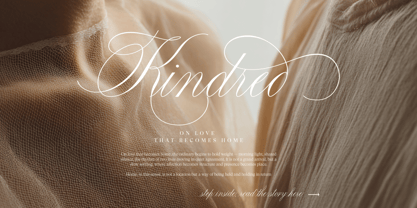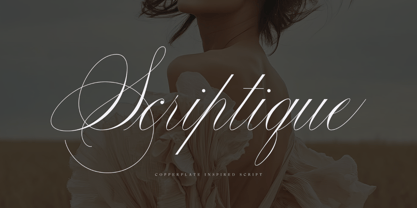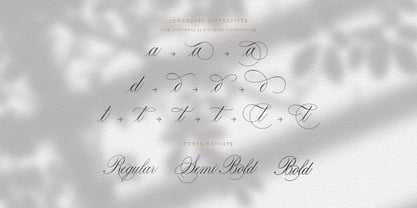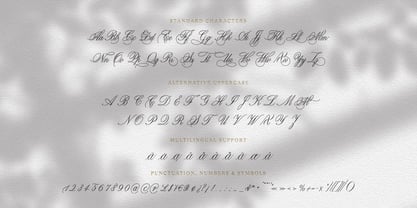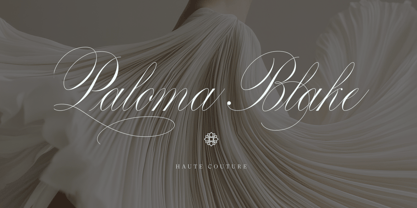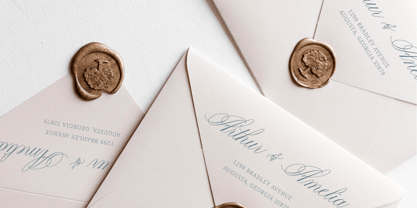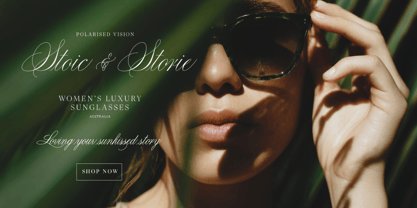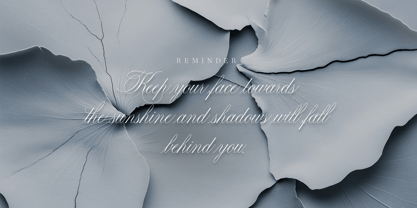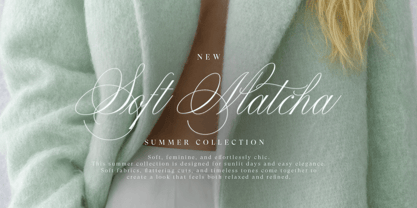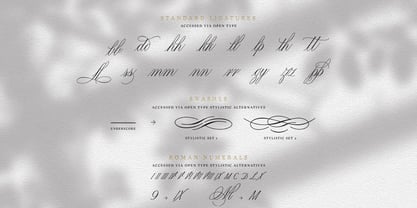
Scriptique
The Scriptique Font Family was designed by Jennifer Lynch and published by Scriptique. Scriptique contains 3 styles and family package options. More about this family
Scriptique is an elegant copperplate-inspired calligraphy typeface that brings together the timeless beauty of traditional pointed pen lettering with a refined contemporary aesthetic. Inspired by the precision and grace of classical copperplate calligraphy, it was designed to capture the authenticity of hand-lettered forms while offering the consistency and versatility required for modern design.
Every character has been carefully crafted to preserve the flowing rhythm, delicate contrast, and expressive movement that define classic calligraphy. The result is a sophisticated script that feels both luxurious and highly functional, making it equally suited to branding, editorial design, premium packaging, wedding stationery, and digital applications.
The Scriptique family includes Light, Regular, and Bold weights, allowing designers to create harmonious typographic systems across a wide variety of projects. With more than 1,900 glyphs, extensive multilingual language support, 63 lowercase stylistic alternates, 29 uppercase stylistic alternates, standard ligatures, and Roman numerals, Scriptique provides exceptional creative flexibility while maintaining a polished and cohesive appearance.
Whether designing a luxury brand identity, elegant editorial layouts, premium packaging, bespoke invitations, logos, or social media content, Scriptique delivers the refinement of traditional calligraphy with the versatility expected by today's designers.
Combining classical craftsmanship with contemporary functionality, Scriptique was created to help designers produce typography that feels authentic, expressive, and effortlessly elegant.